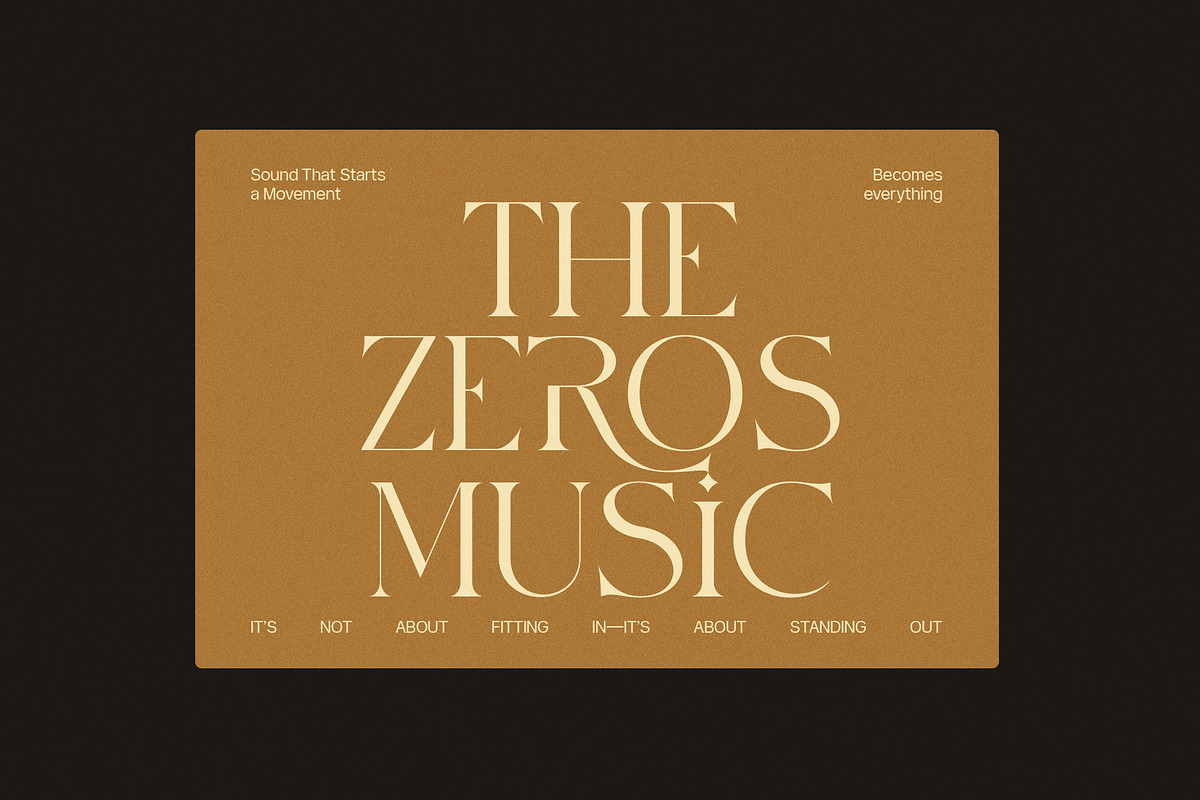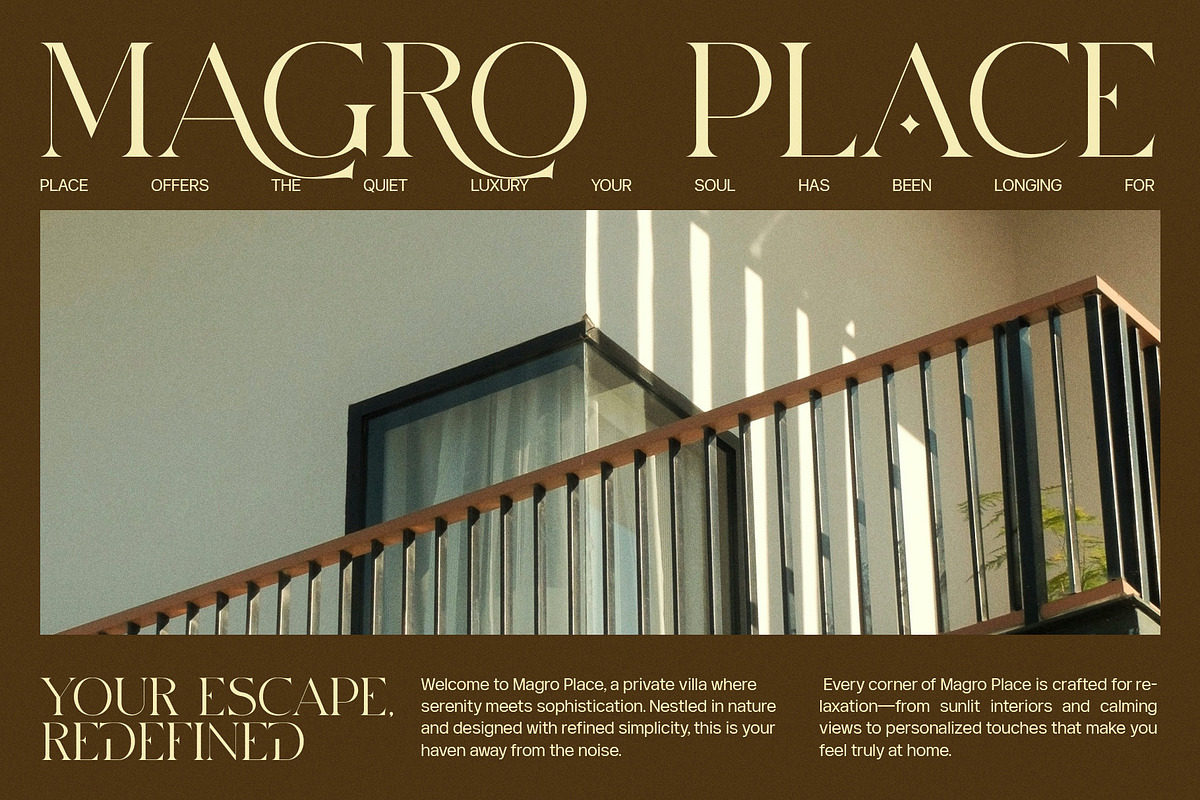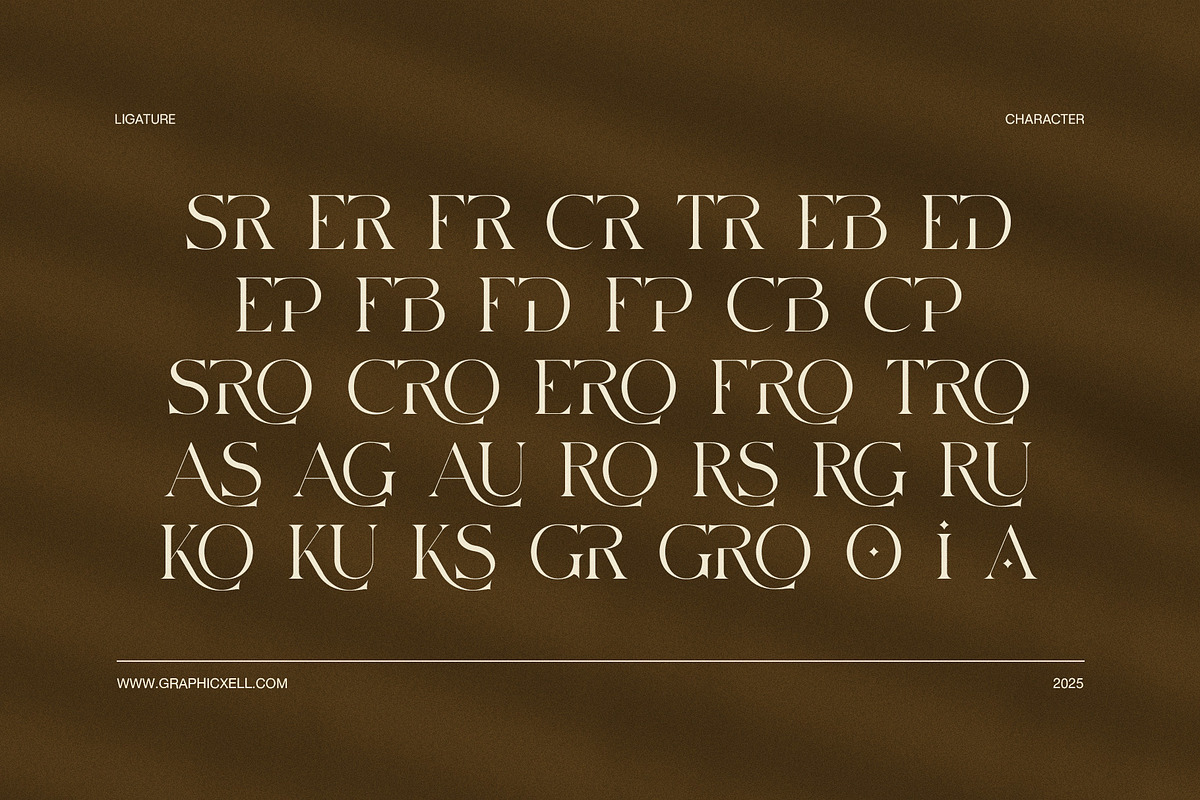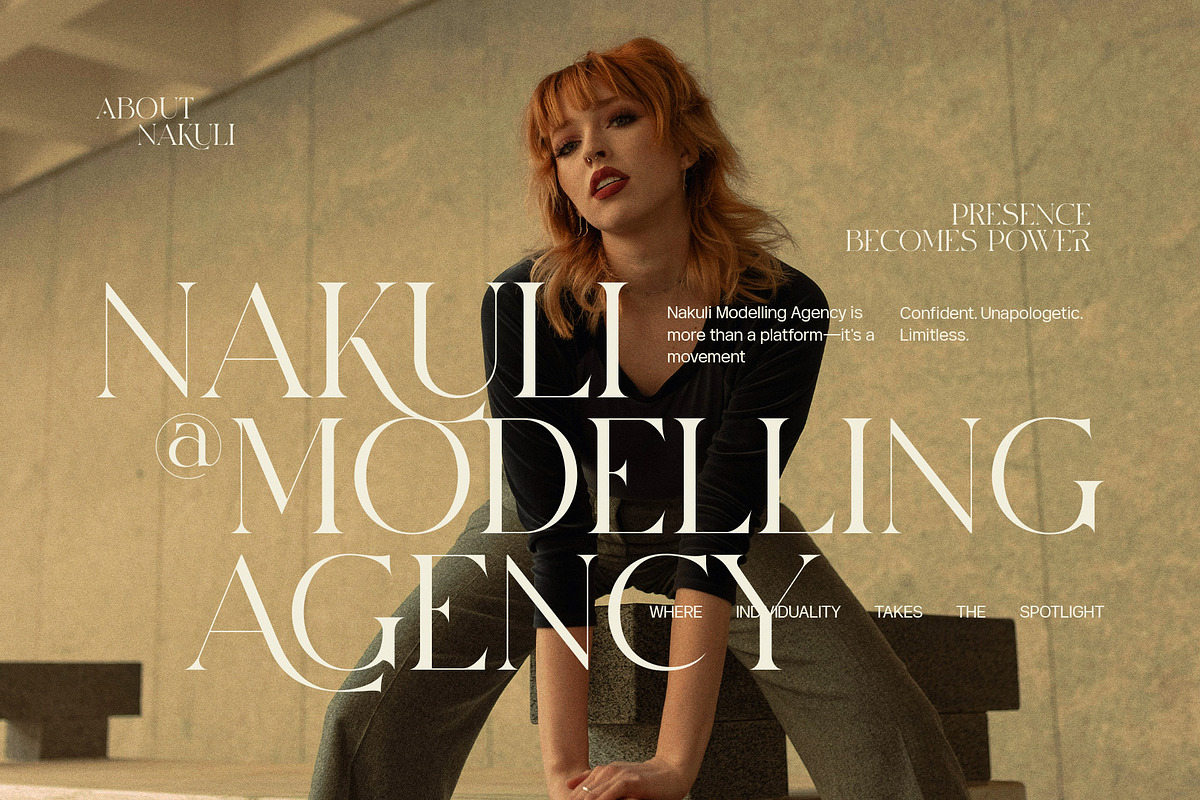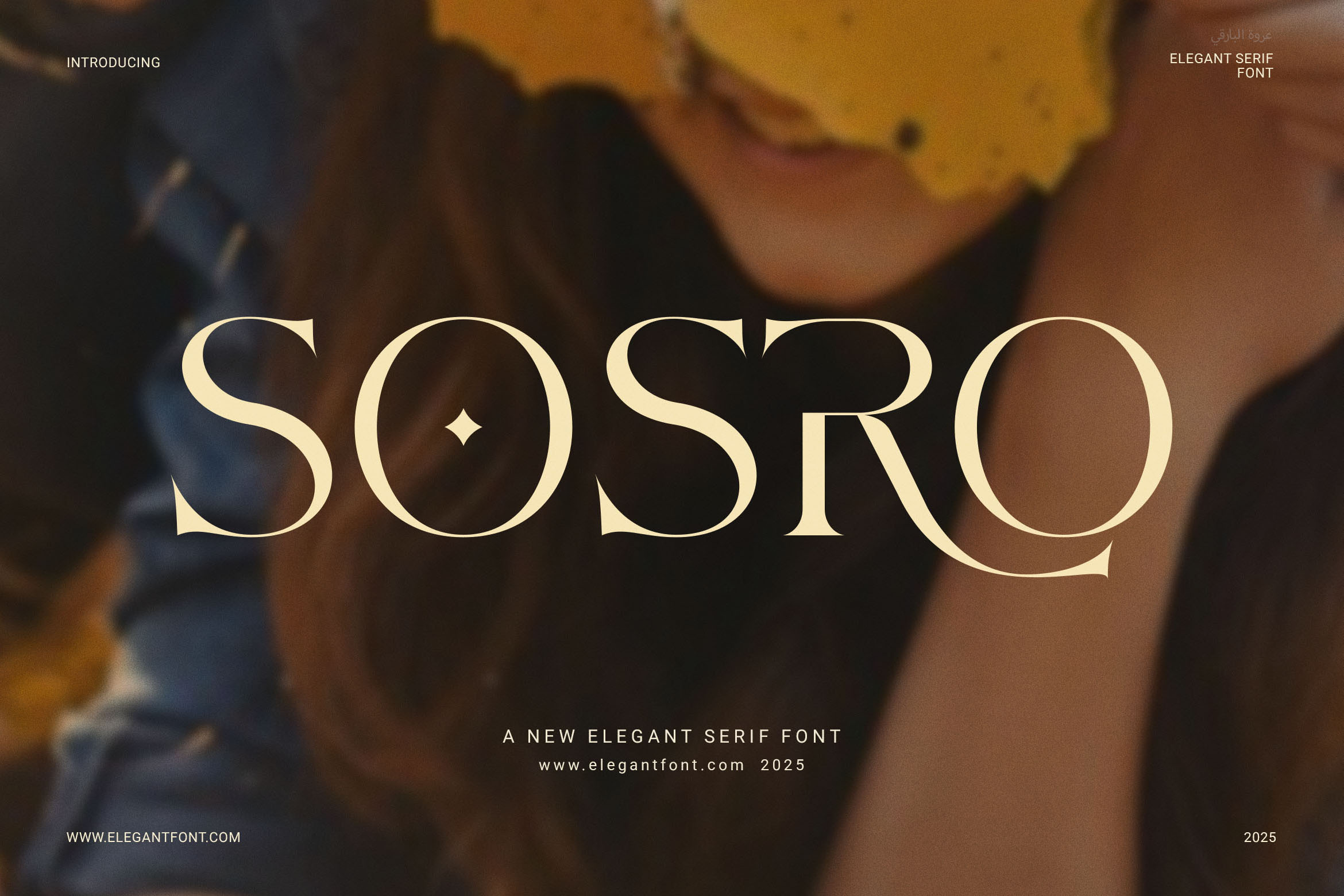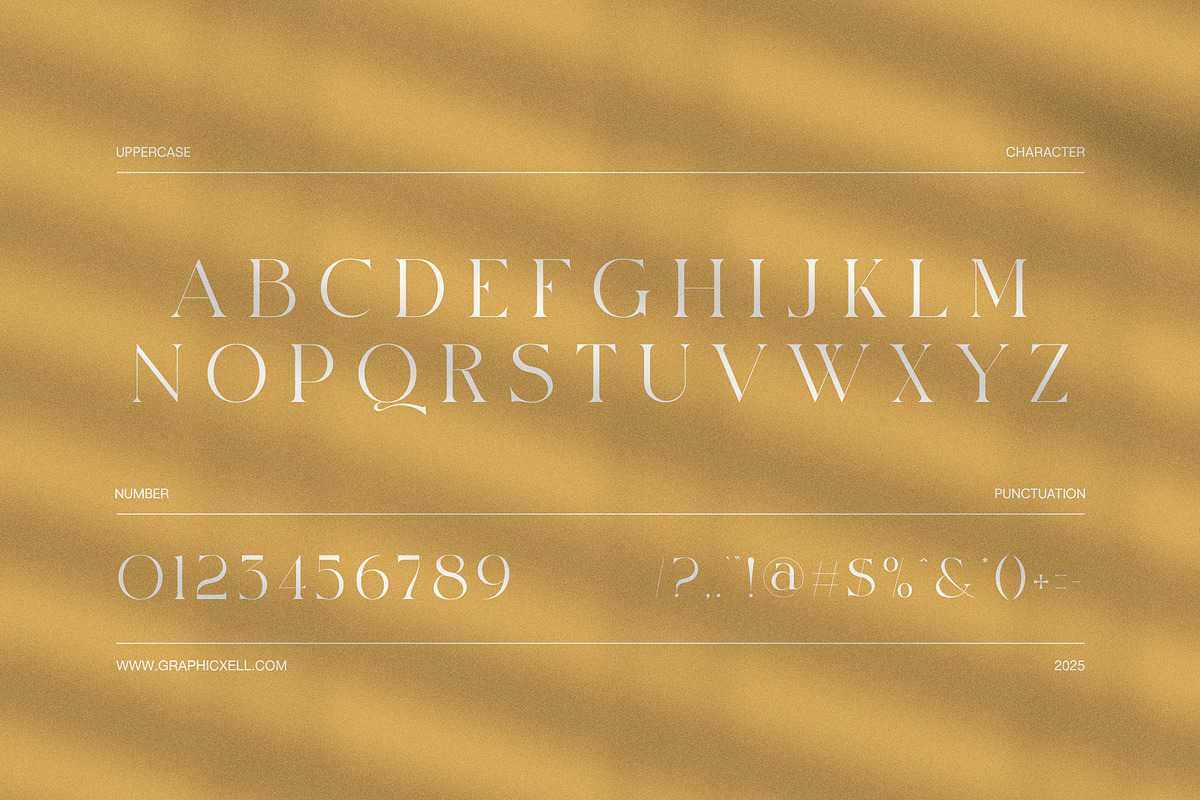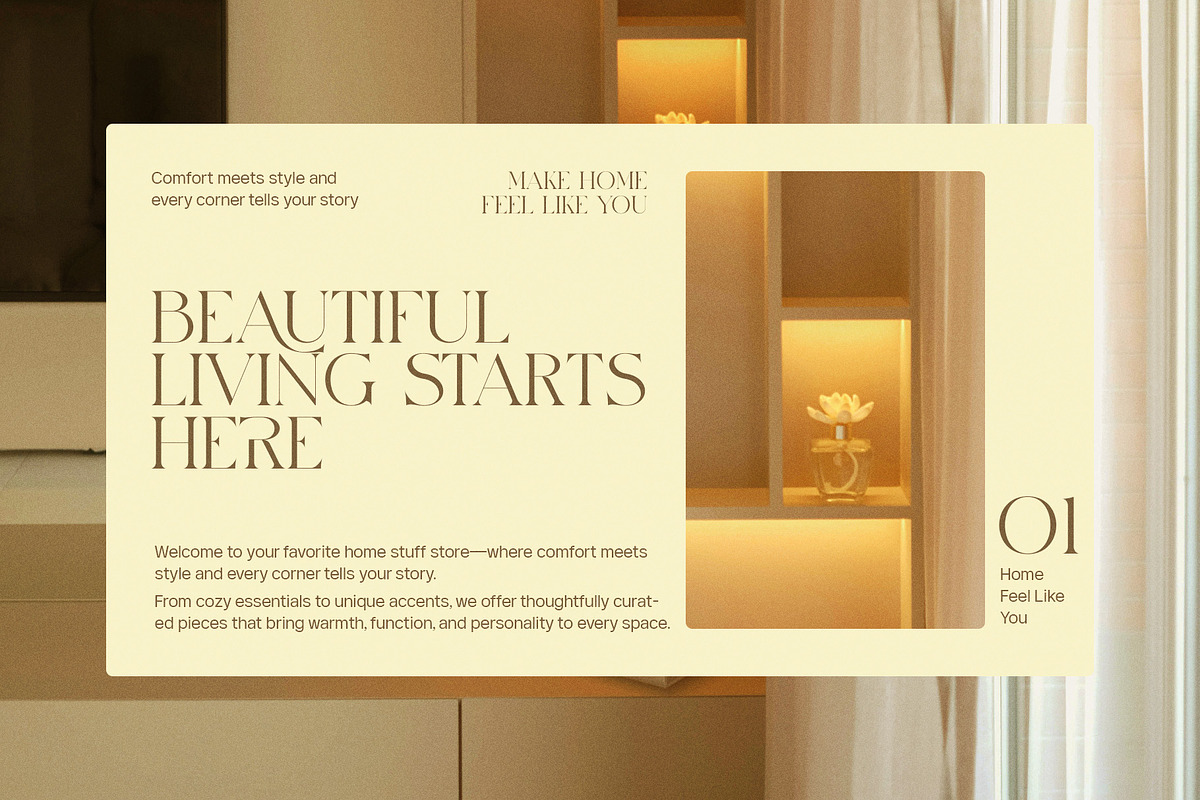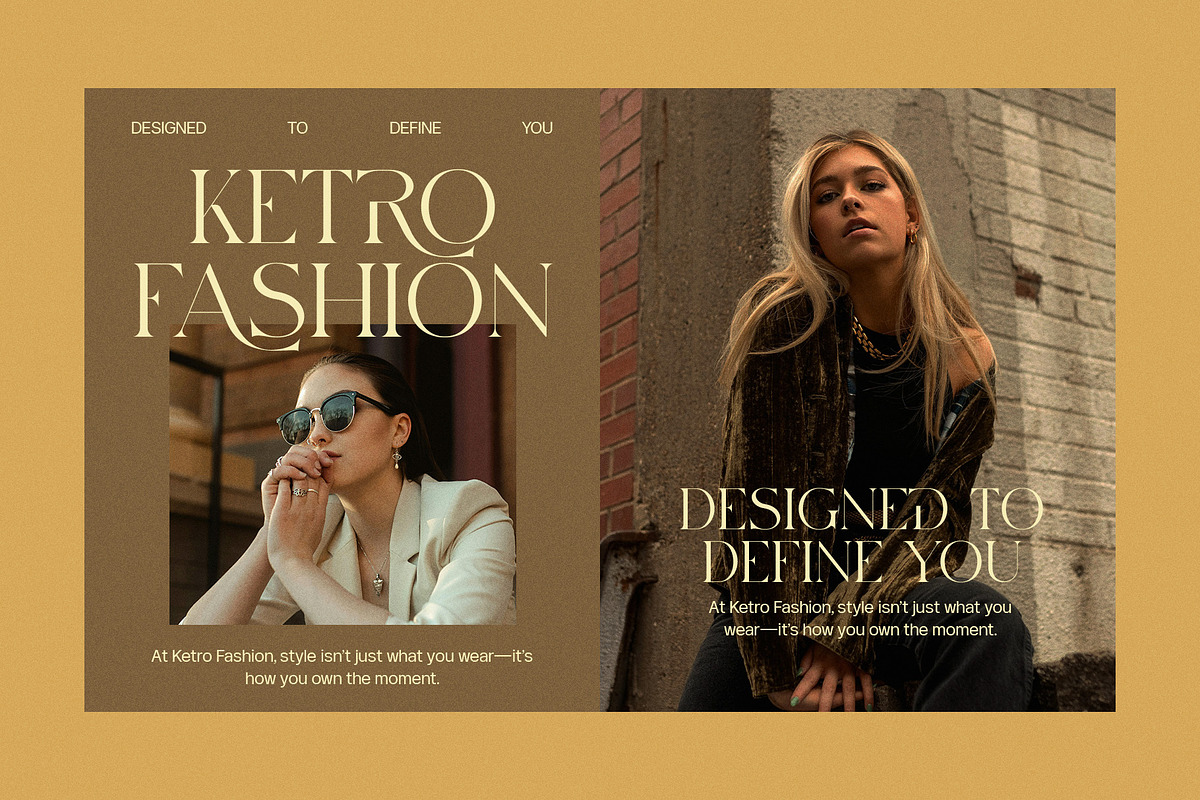
Sosro Elegant Serif Font
Sosro Serif is a classic serif font that marries strength with style, crafted for designers who want bold character plus timeless charm. Because it features firm serifs, well‑balanced strokes, and generous contrast, this typeface works well for logos, titles, editorial, and premium packaging. It feels strong yet refined; formal yet warm. Every character in Sosro catches the eye without overwhelming the design.
Here is what makes Sosro Serif stand out:
Bold weights for headlines or branding that need impact
Clean but dramatic contrast between thick and thin strokes for visual appeal
Traditional serif shapes that hint at classic print craftsmanship
Sharp terminals and elegant curves to add personality
Broad uppercase range combined with versatile lowercase versions
Multiple language support for wider use globally
Moreover, Sosro Serif offers many benefits for your projects. Firstly, you gain readability even in large displays, because the contrast keeps shapes distinct. Secondly, you get authority and tradition — perfect for brands that wish to project trust, luxury, or sophistication. Although it leans bold, it balances weight so that text blocks, titles, and logos all feel coherent. Also, Sosro adapts well: whether printed in catalogs, stamped on packaging, or displayed on screens, it holds its shape and voice.
Furthermore, designers often need fonts that work seamlessly across media. With Sosro, you enjoy consistent performance: good legibility on paper, clarity in signage, strong presence on social posts. Besides, because its serif design is rooted in classic traditions, paired with modern sharpness, Sosro gives you both heritage and freshness in one package. If you want your design to feel elegant, strong, and lasting, Sosro Serif is excellent font choice.